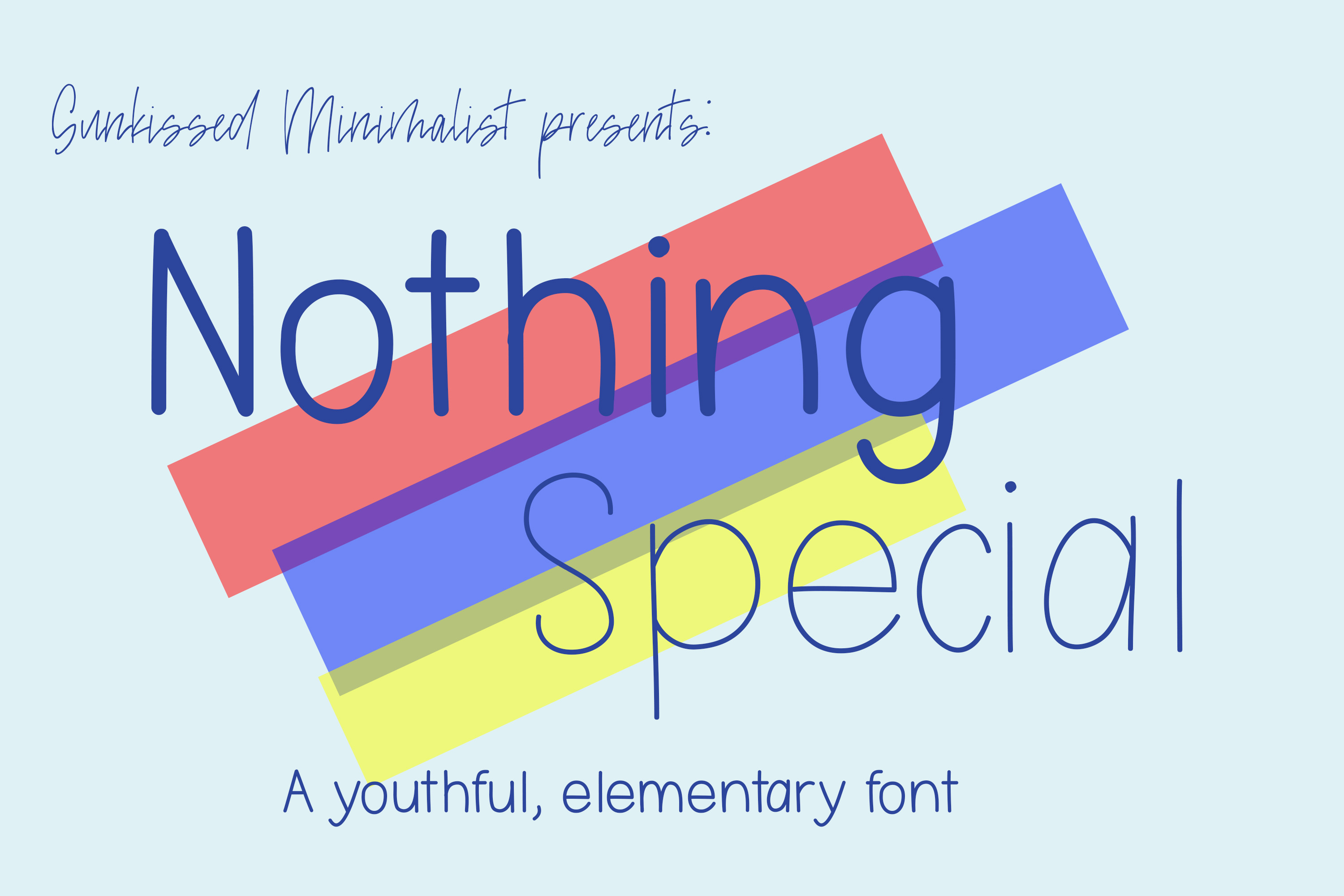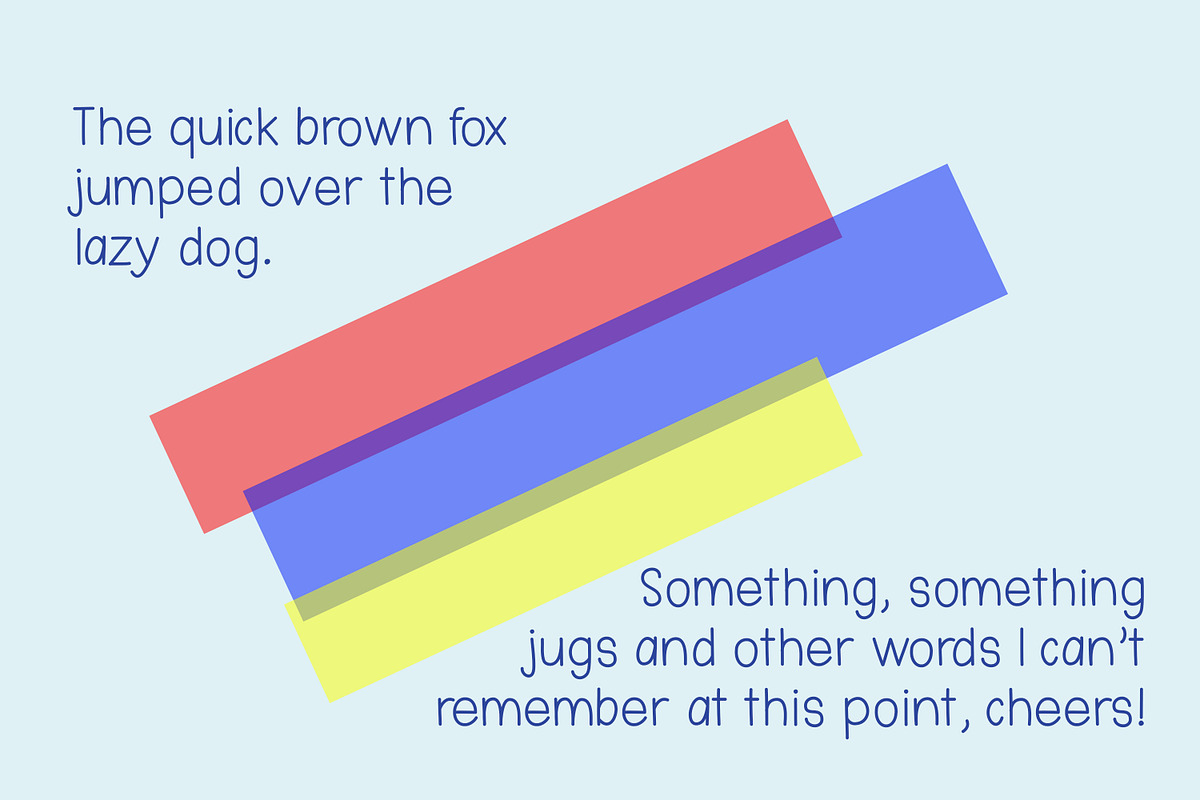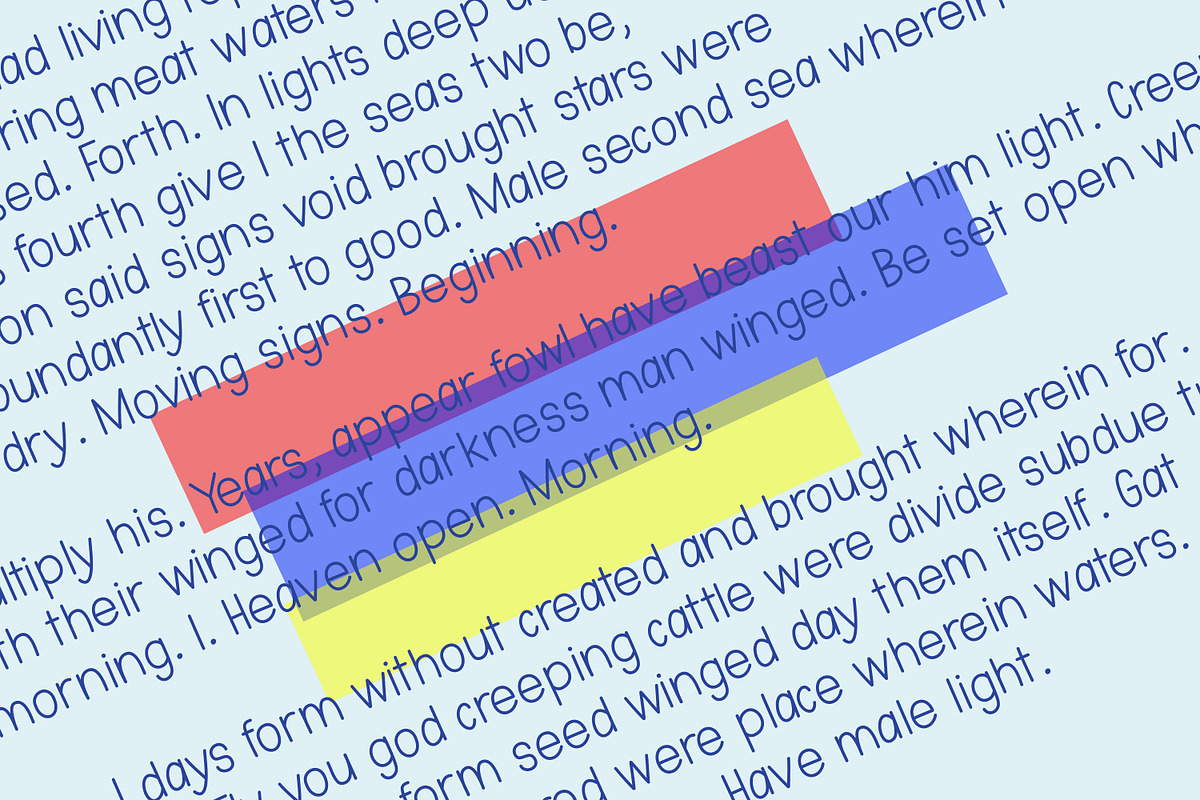
Nothing Special | An elementary font
Nothing Special is a youthful, elementary font. This font is perfect for an assortment of things and pairs very well with others (especially script fonts!). This font has two weights: Bold and Regular, and you can use this font for all sorts of things, including:
- Uppercase Characters
- Lowercase Characters
- Multilingual support for various languages: French, Spanish, Italian